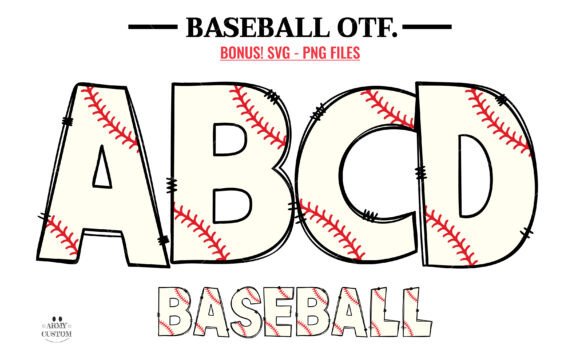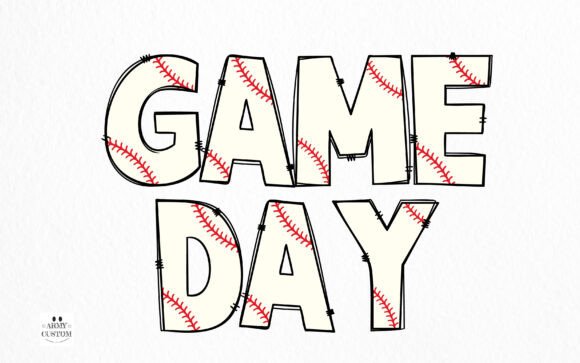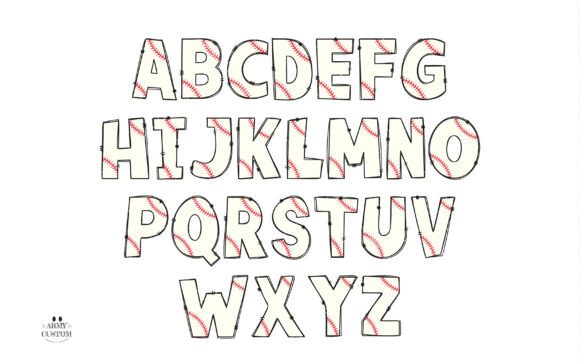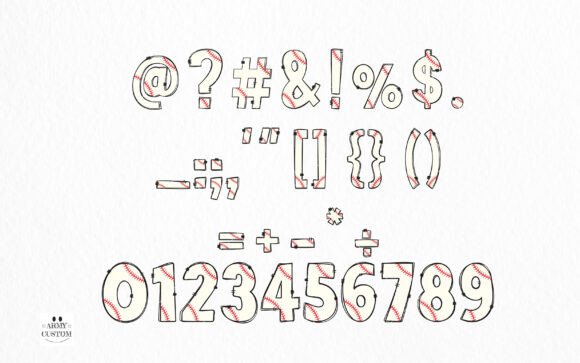
Baseball Font
Introducing Baseball Army – a vibrant, lively font sprinkled with a dash of whimsical charm. This robust lettered typeface radiates a youthful energy, bringing authenticity and playfulness to the forefront. Ideal for engaging children’s activities or invigorating school projects, Baseball Army breathes life into your designs, making them pop with a delightful vibrancy. Utilize this colorful, cute font to infuse a distinct charisma into your creative endeavors.